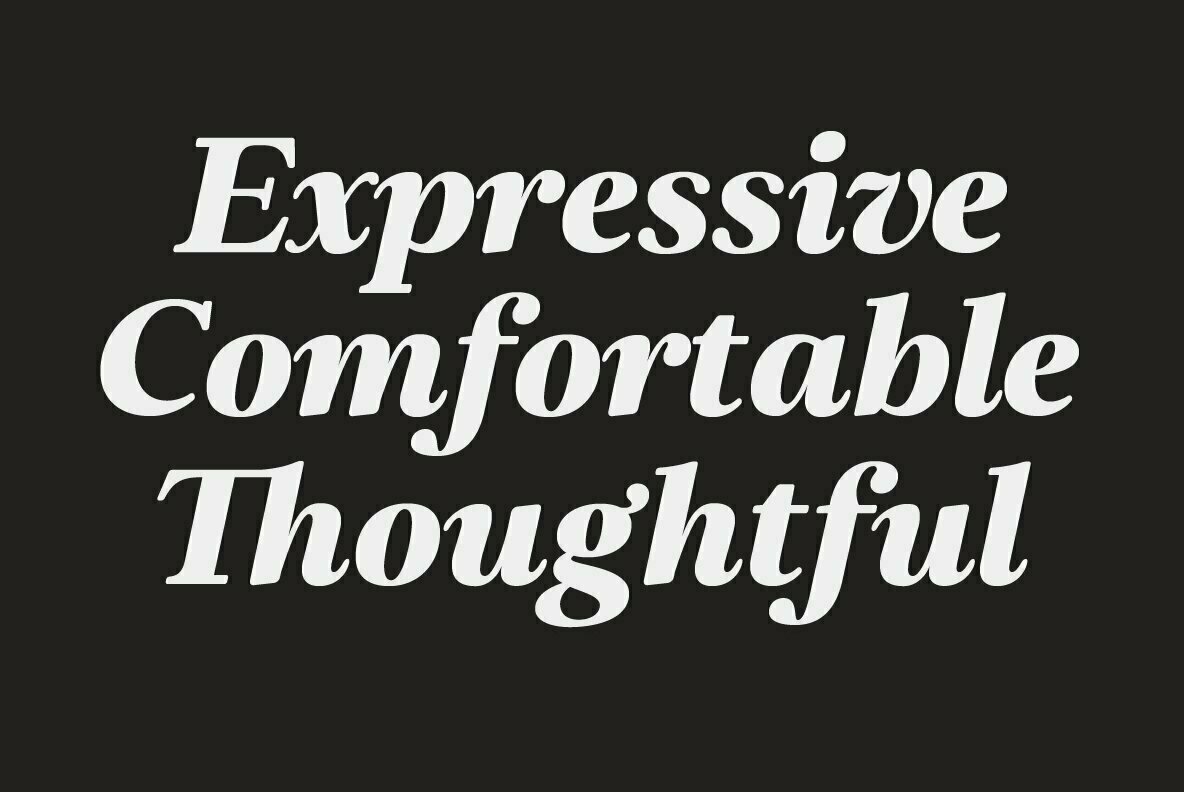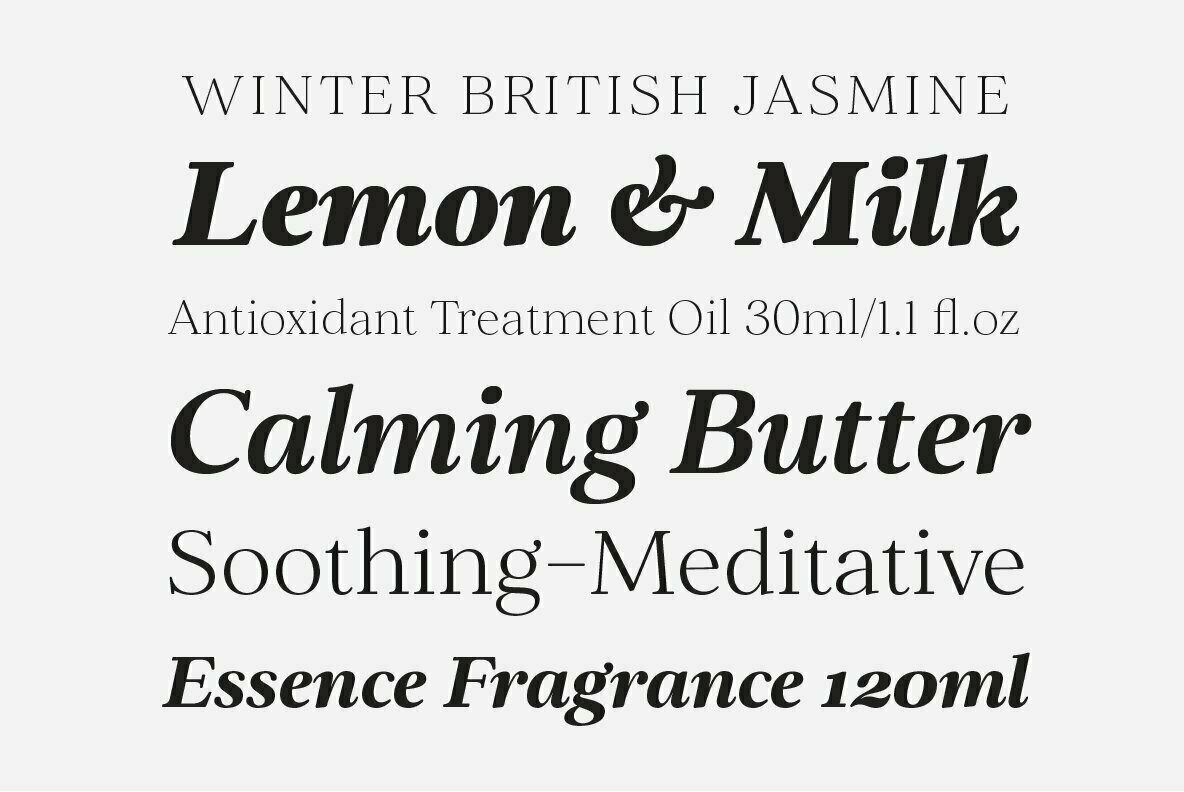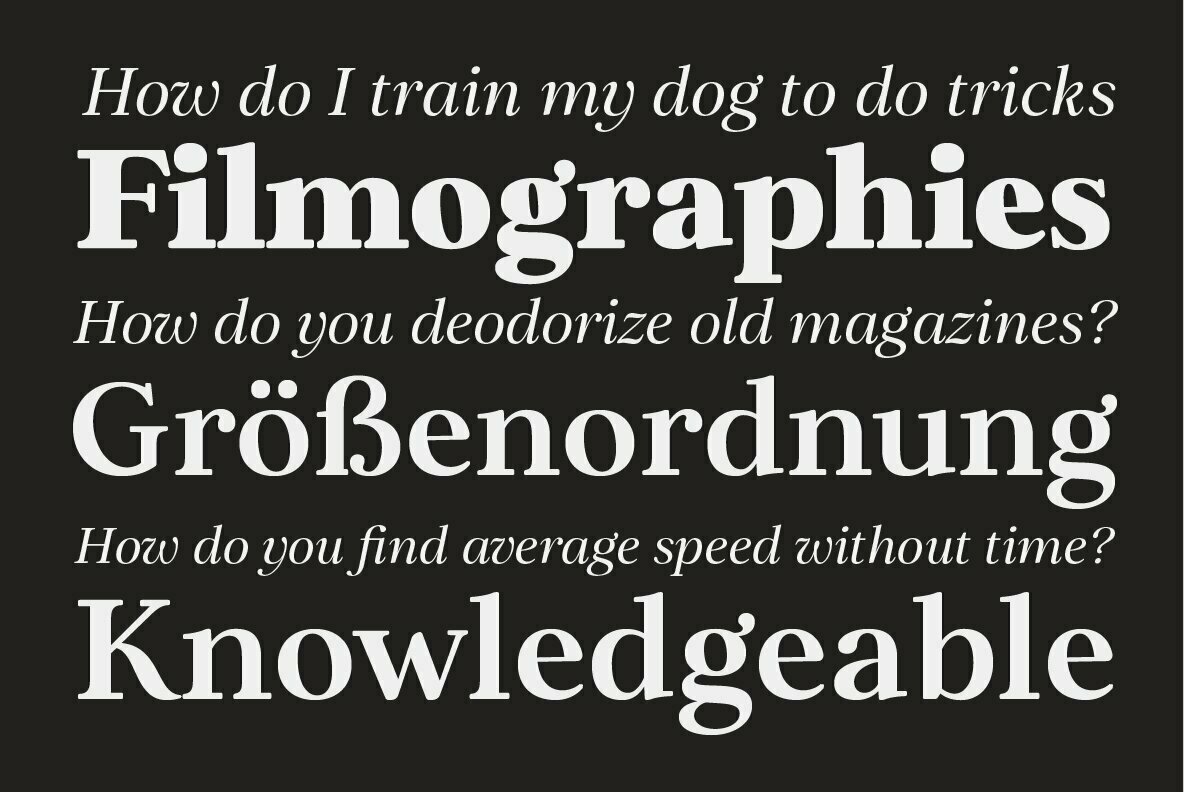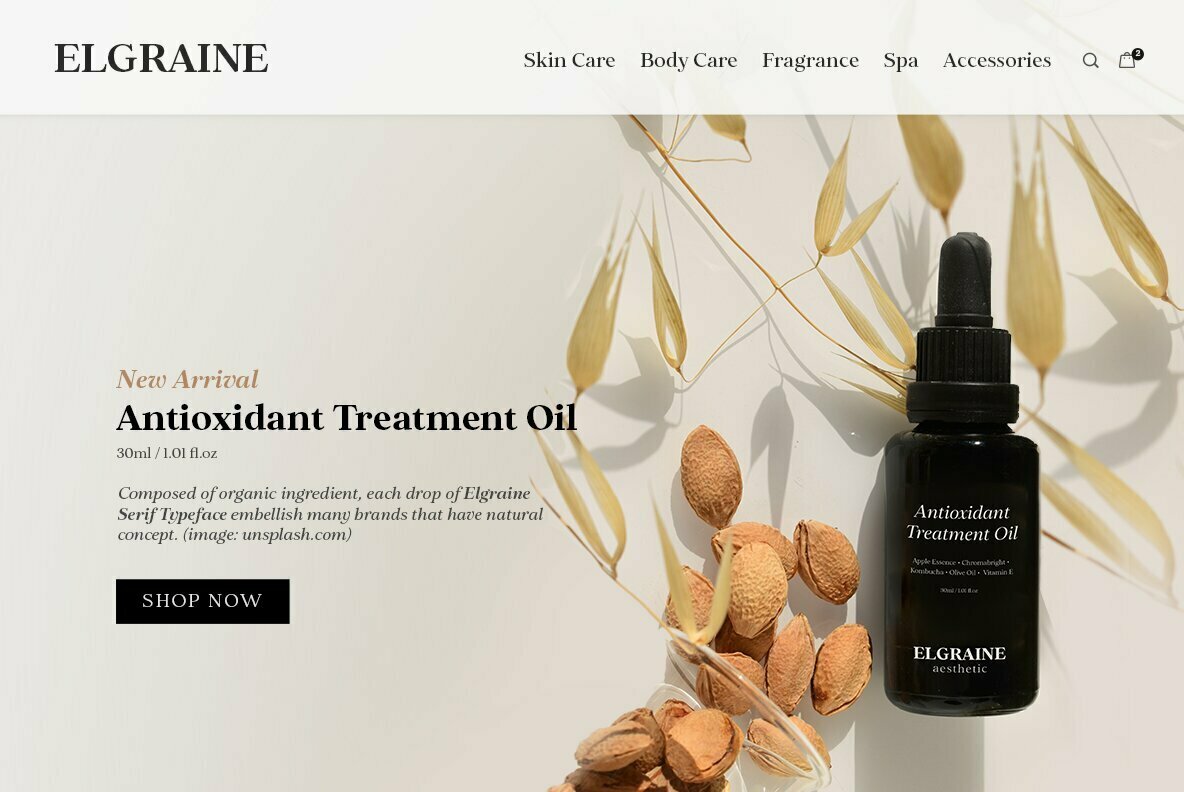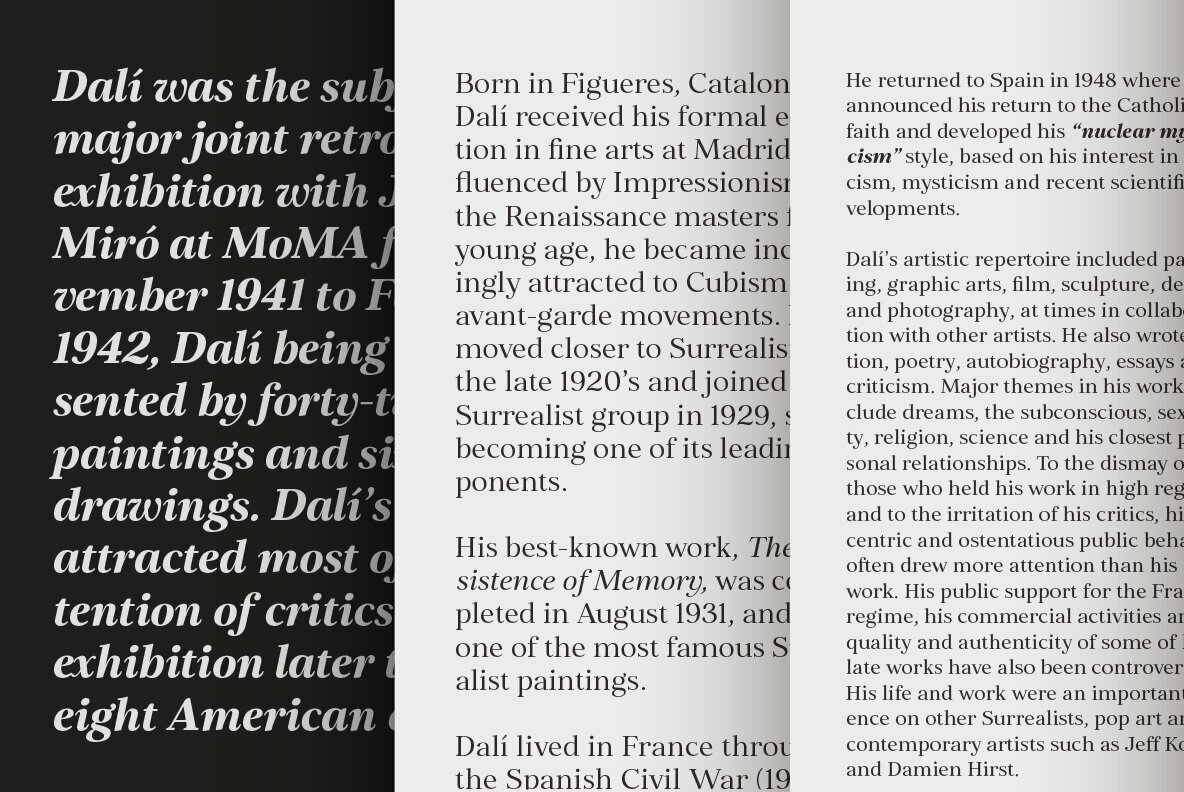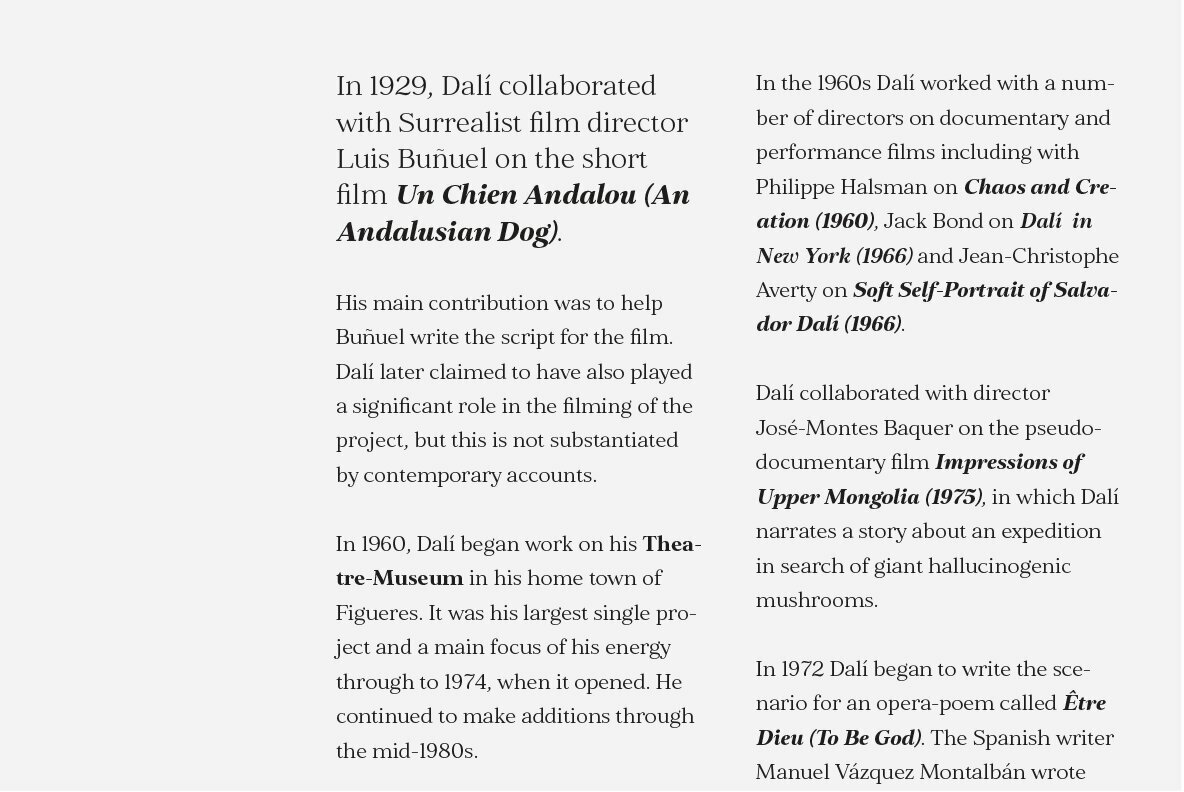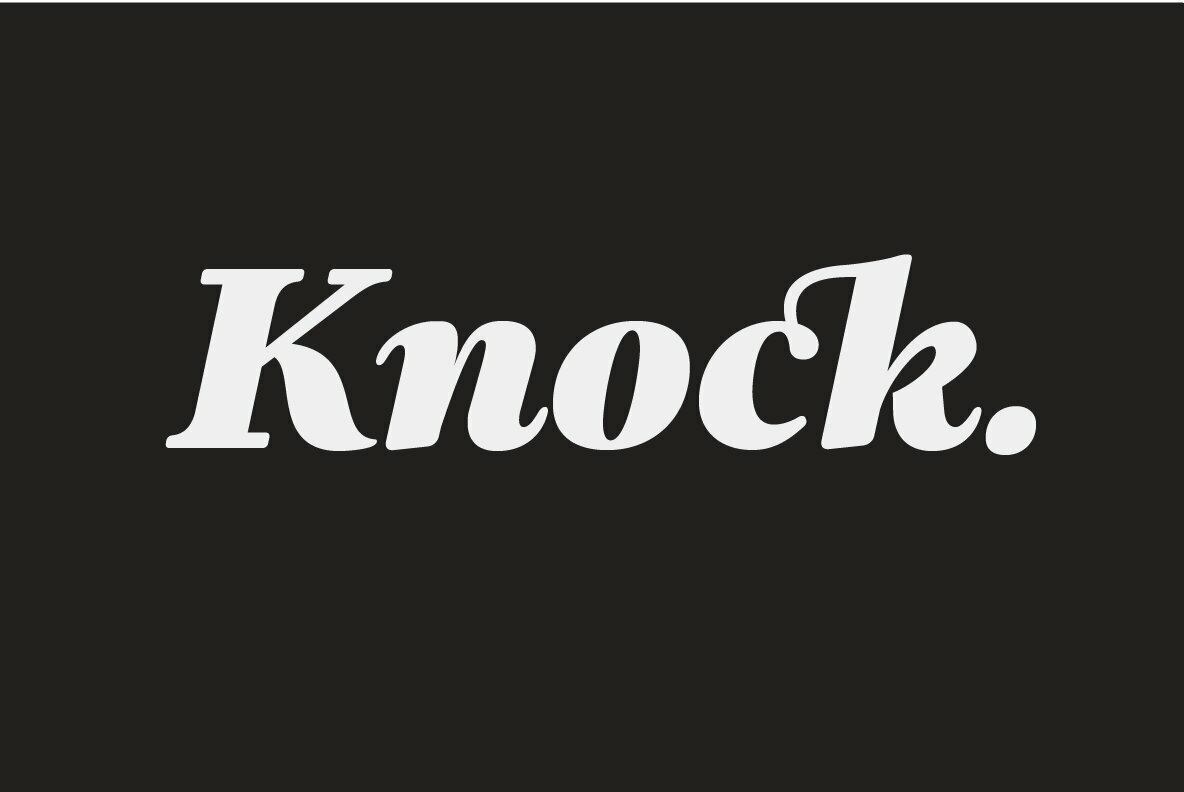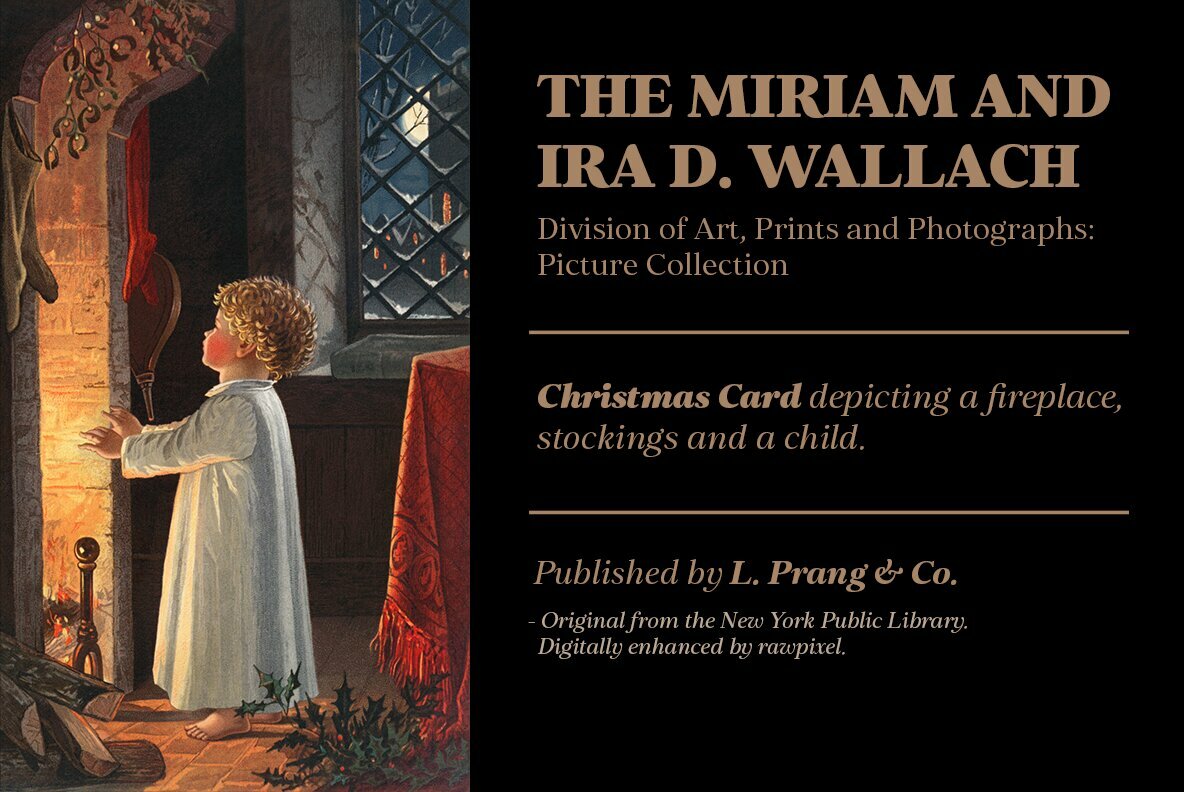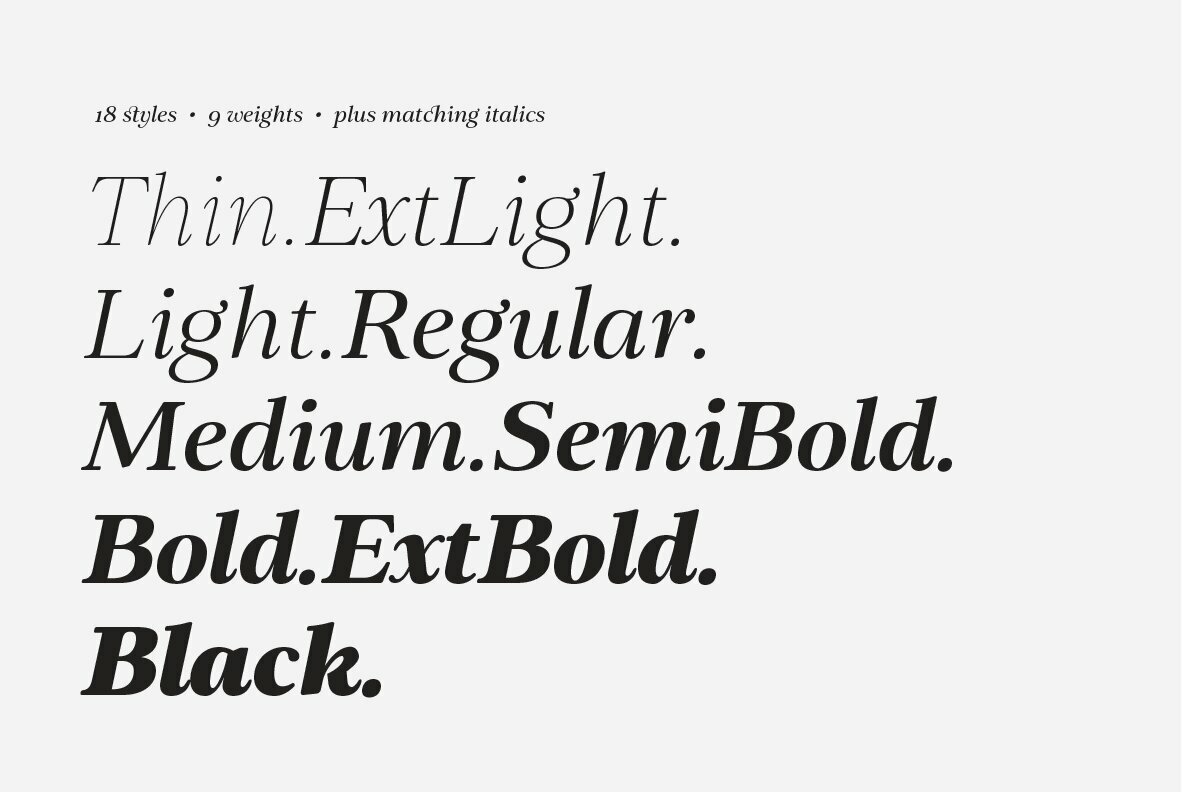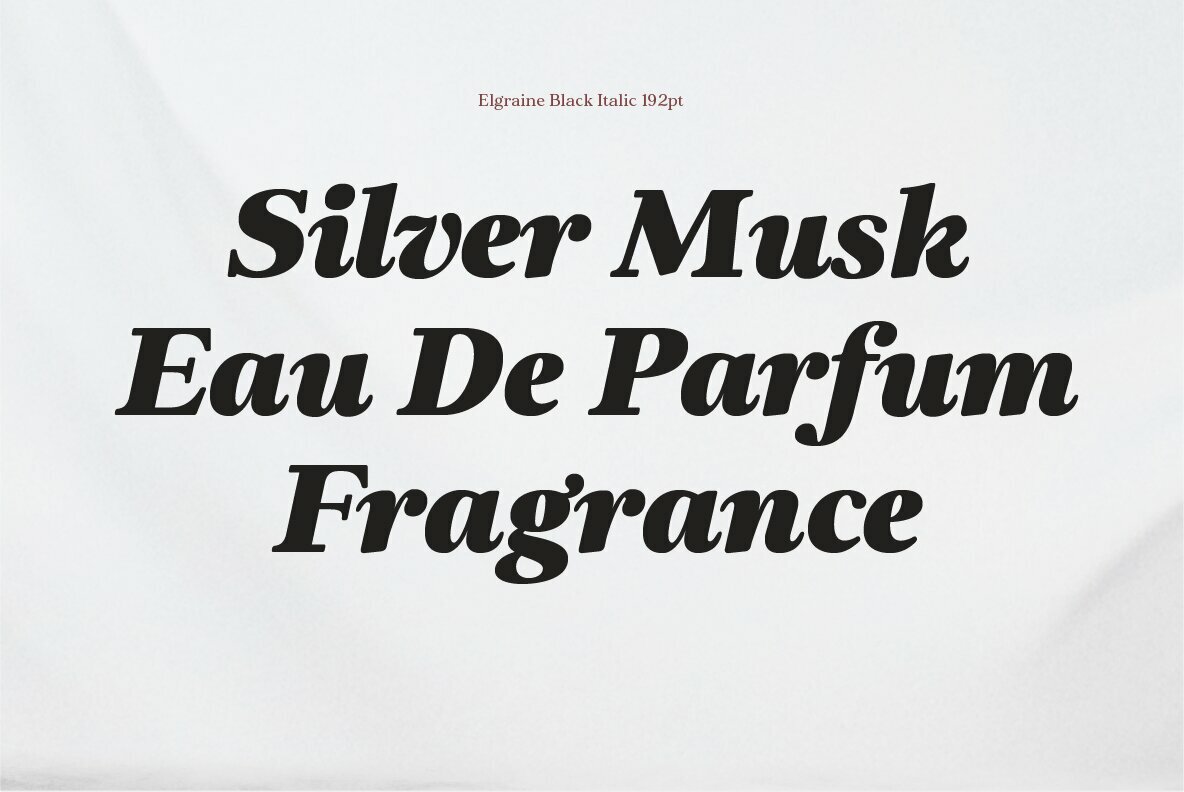
Elgraine Font
Elgraine is a serif typeface inspired by the beauty of classic serif and calligraphic style, fused with modern touch.
Ranging from thin to black with its matching italics, Elgraine offers many possibilities to be applied in many graphic or editorial projects. The light and regular weights are suitable for long paragraph, and the heavier weights are perfect for striking headlines, perfectly suitable for display purpose such as branding, editorial, and packaging.
Elgraine has extended latin character set that supports 200+ latin-based languages.